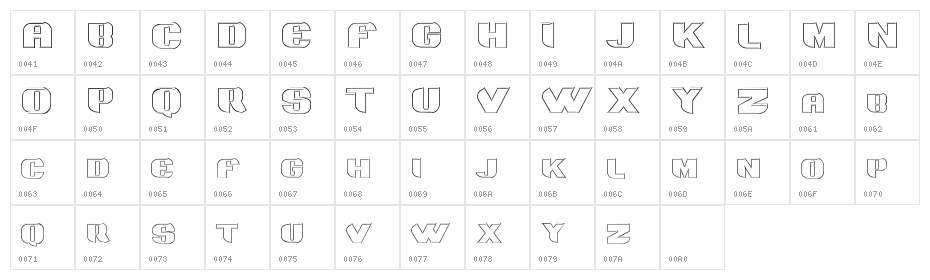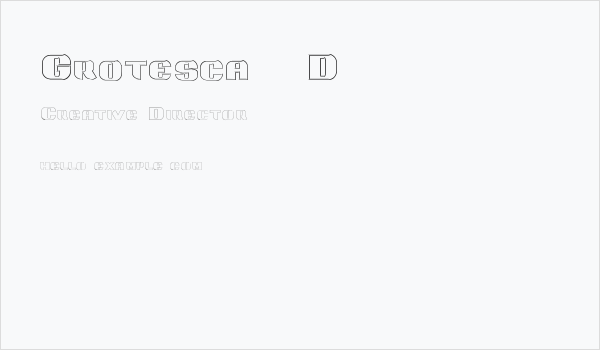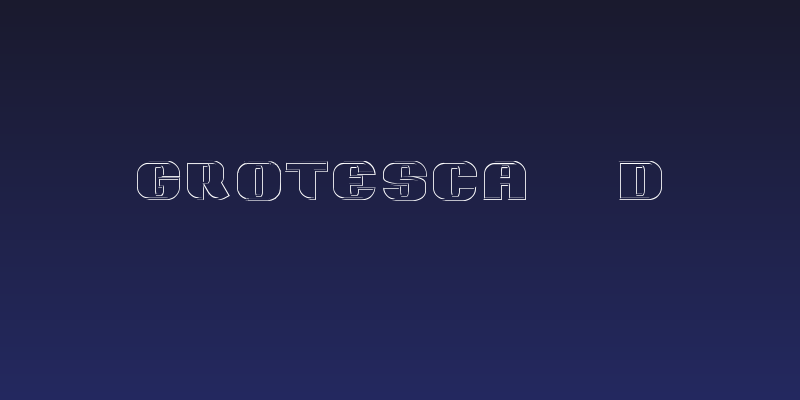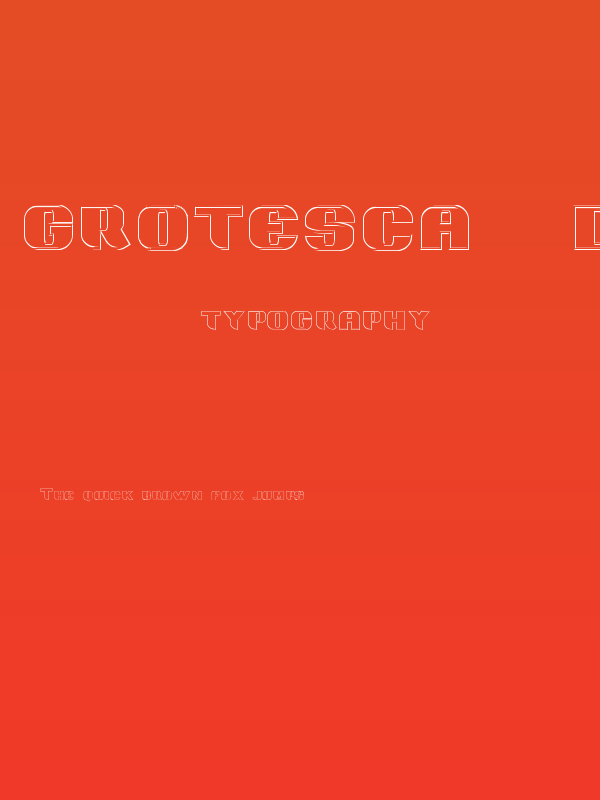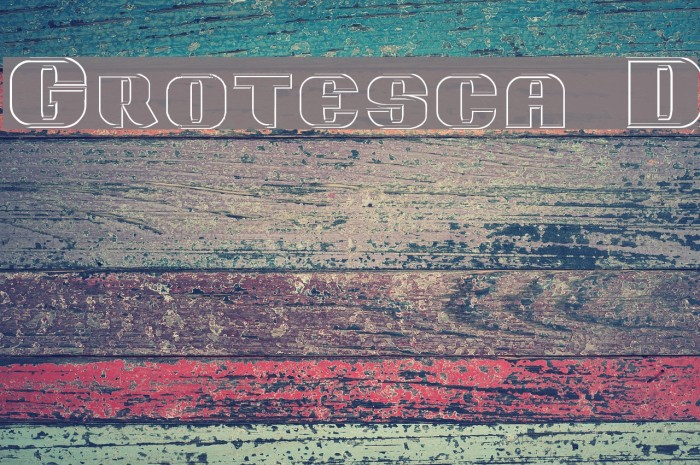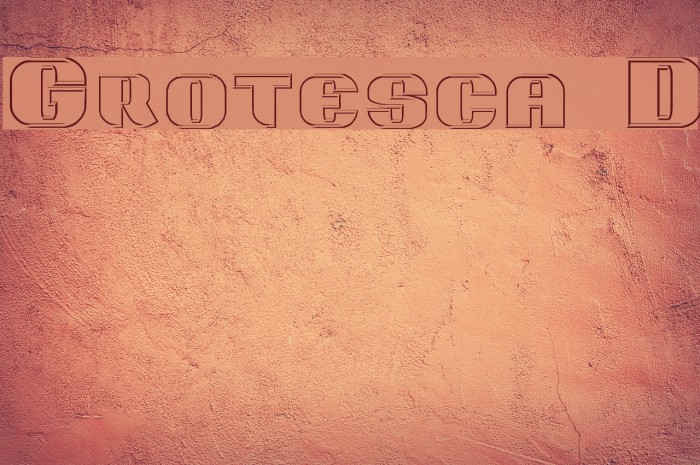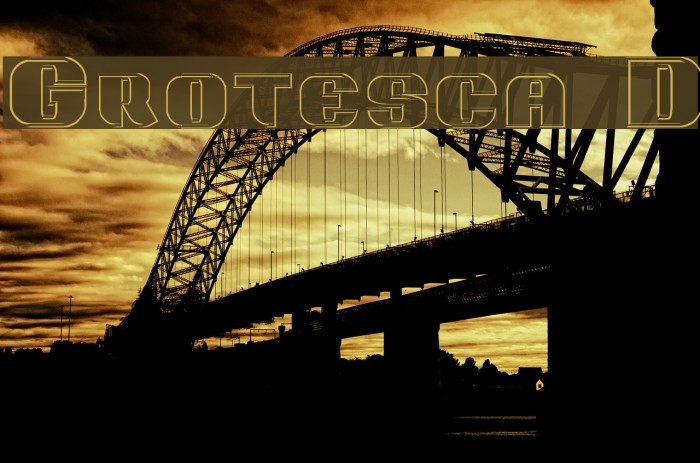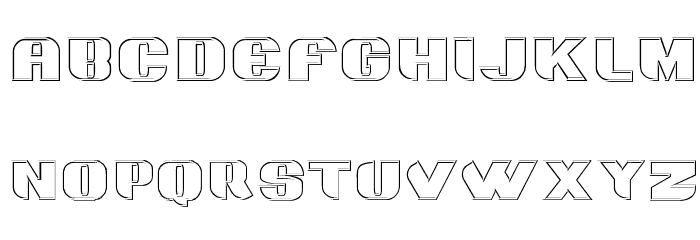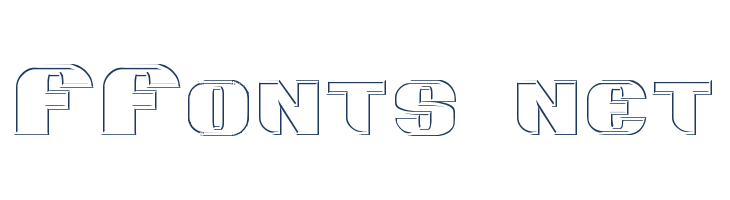
Grotesca 3-D Font
This font features a bold, three-dimensional design with a geometric and futuristic aesthetic. The characters are outlined, creating a sense of depth and structure. The uppercase letters exhibit a uniformity in height and width, with angular and sharp edges that enhance the 3D effect. The style is reminiscent of digital or sci-fi themes, making it stand out with its unique and eye-catching appearance. The font's design is consistent across all characters, maintaining a cohesive look that is both modern and dynamic.
| Proposed Projects | Ideal for projects involving technology branding, sci-fi movie posters, video game titles, or any design requiring a modern and striking visual impact. |